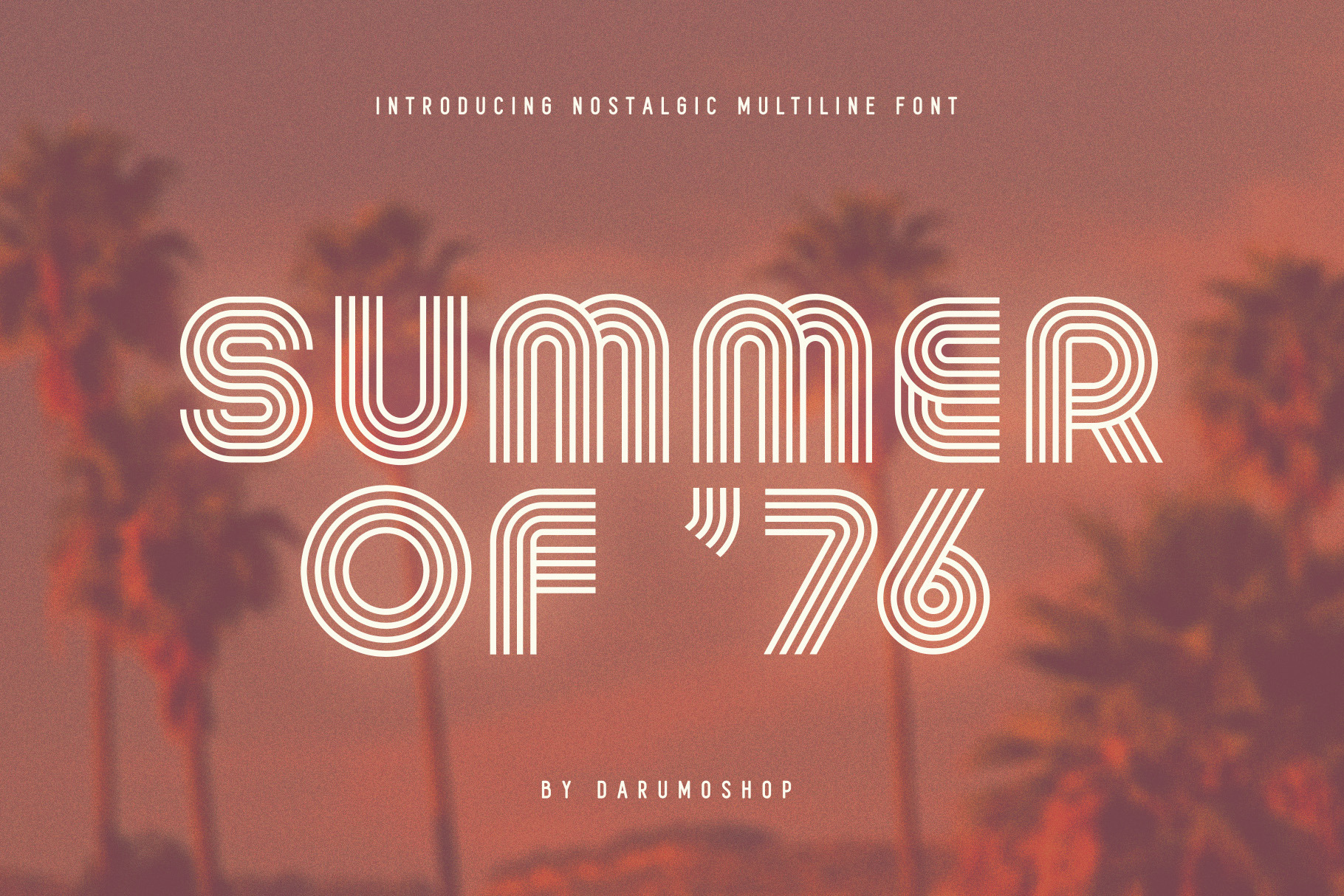
Summer 0f 76 - Multi-Line Font
Introducing Summer of '76, a nostalgic multi-line font inspired by the 70's aesthetic. Perfect for headers, can be used for text blocks also. This font could be the perfect solution if you want to give a lovely retro touch to your designs. Summer of '76 was created especially for Hot Summer of 1976 vector graphic pack. But you can use it separately for your amazing designs.
Now it goes in two font styles: multiline and solid. Enjoy, folks!